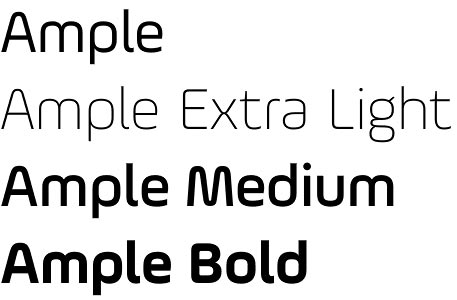
Ample font
Ample font by the Indian type designer Aakash Soneri (Soneri Type foundry) is a contemporary display typeface family with an interesting morphology and structure. It’s optical mono-linear, with simple and clean shapes, and with angular stroke junctions mitigated by smooth curves – a distinctive typeface’s characteristic. The lettering is evenly flowing leading the eye bend after bend. Ample font family is designed primarily as a display font, perfect for headlines, posters, but it also has an excellent legibility and is just as good looking in smaller text sizes.
Ample font family comes in six upright weights (Thin, Extra Light, Light, Regular, Medium and Bold) with no italics due the type’s specific geometry. Standard OpenType features provided.
Aakash Soneri is self-educated graphic and type designer from India. He founded his Soneri Type Foundry in 2009.